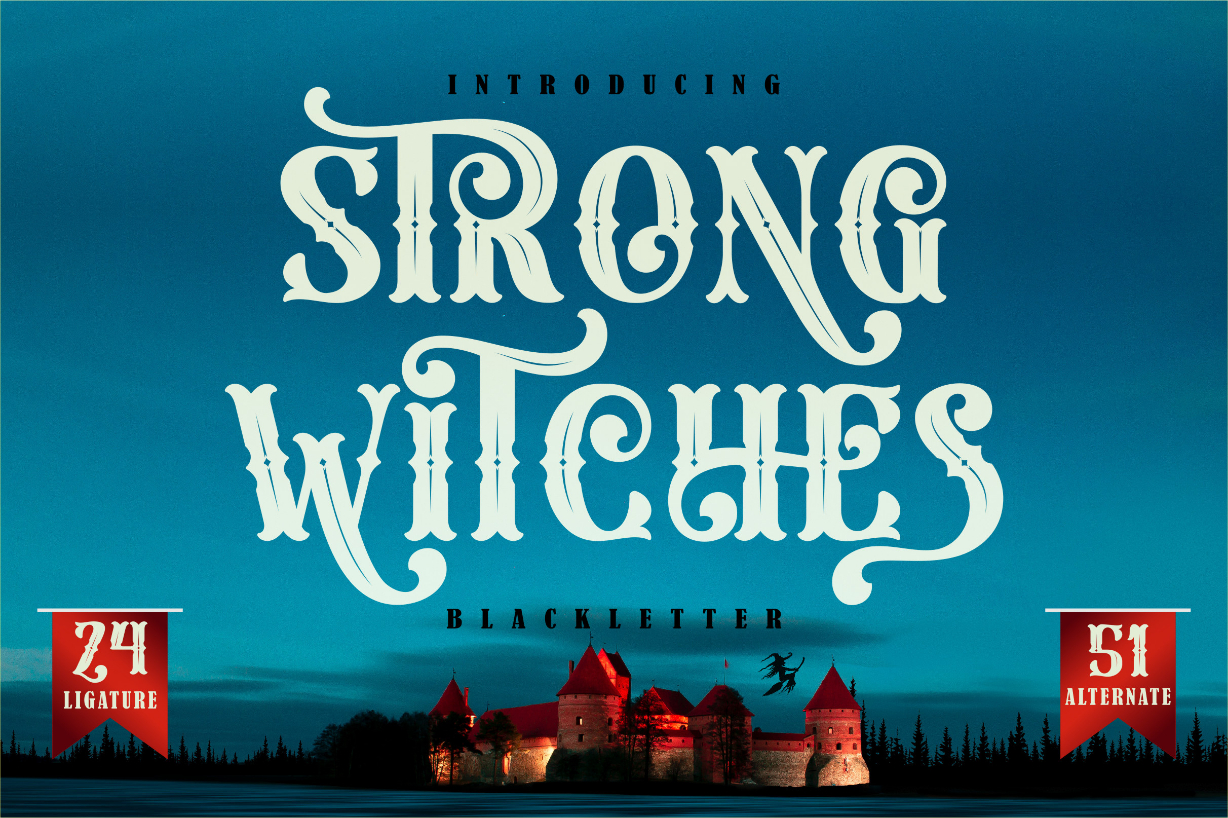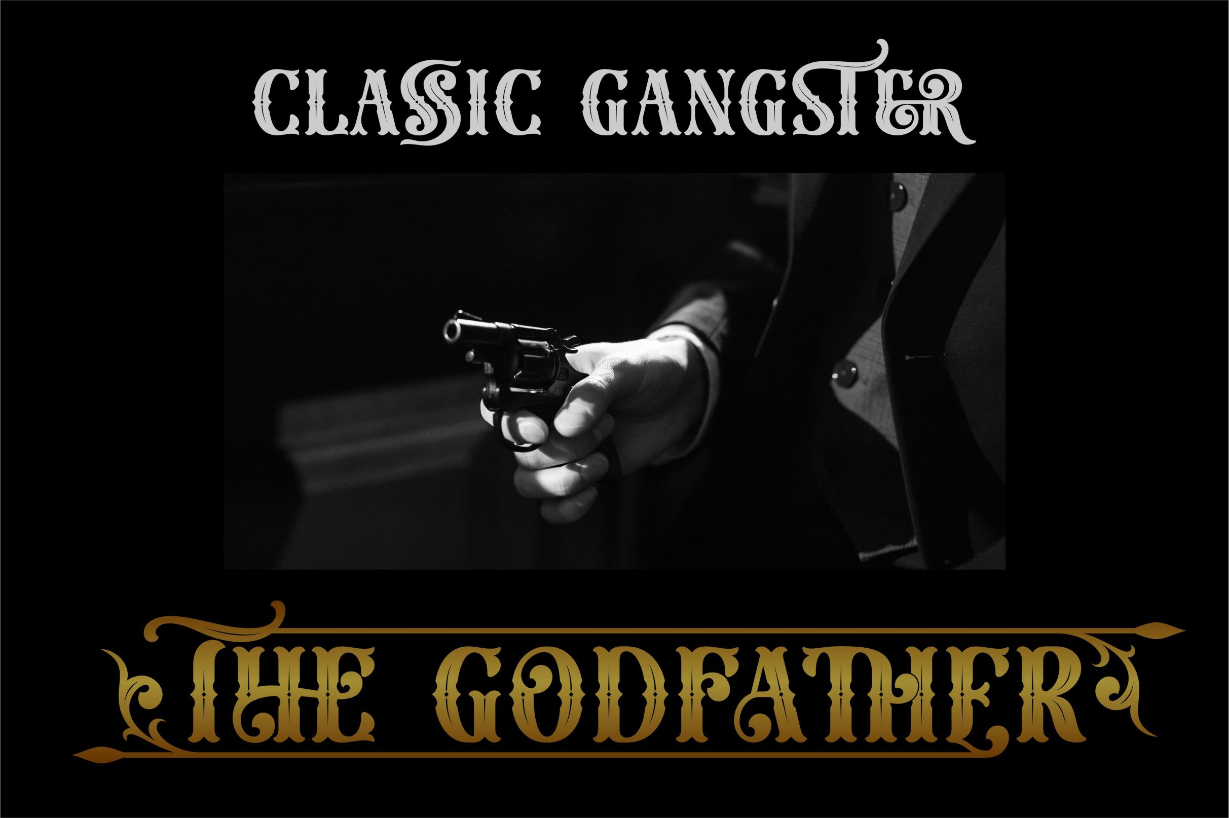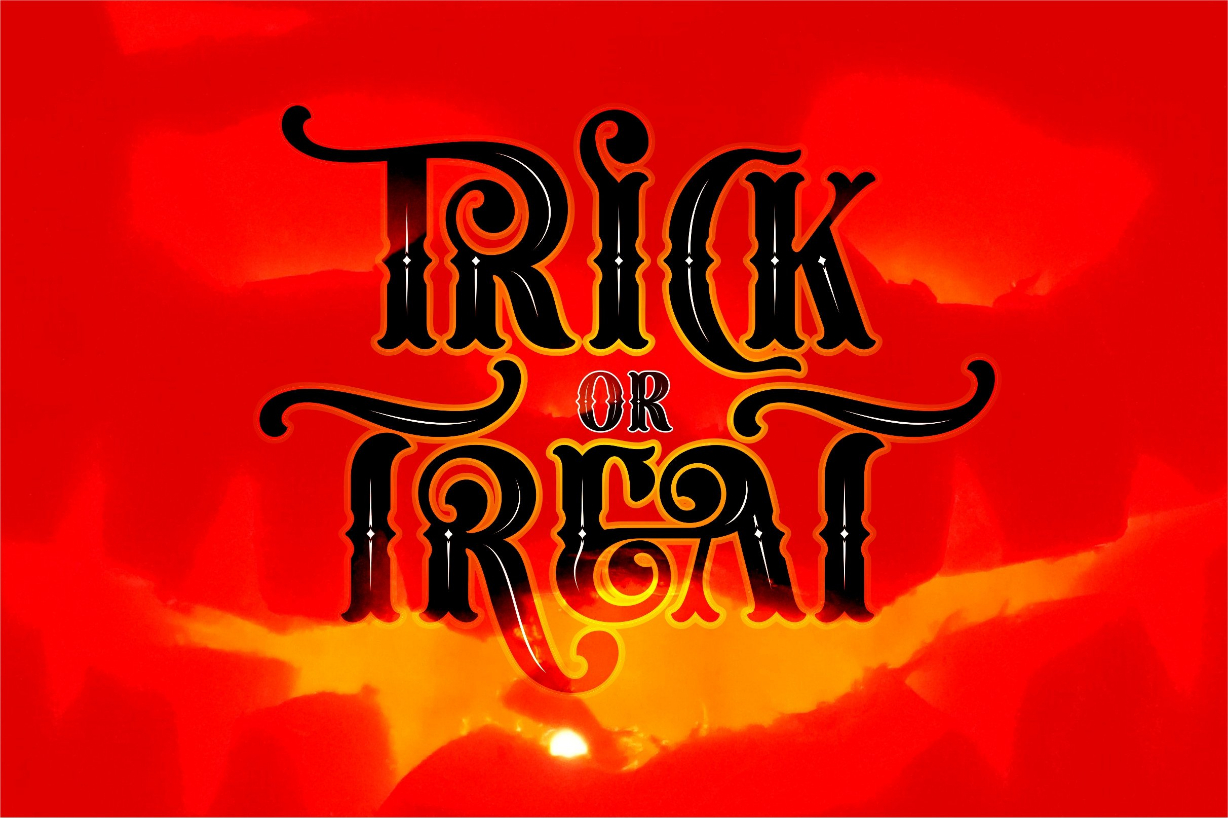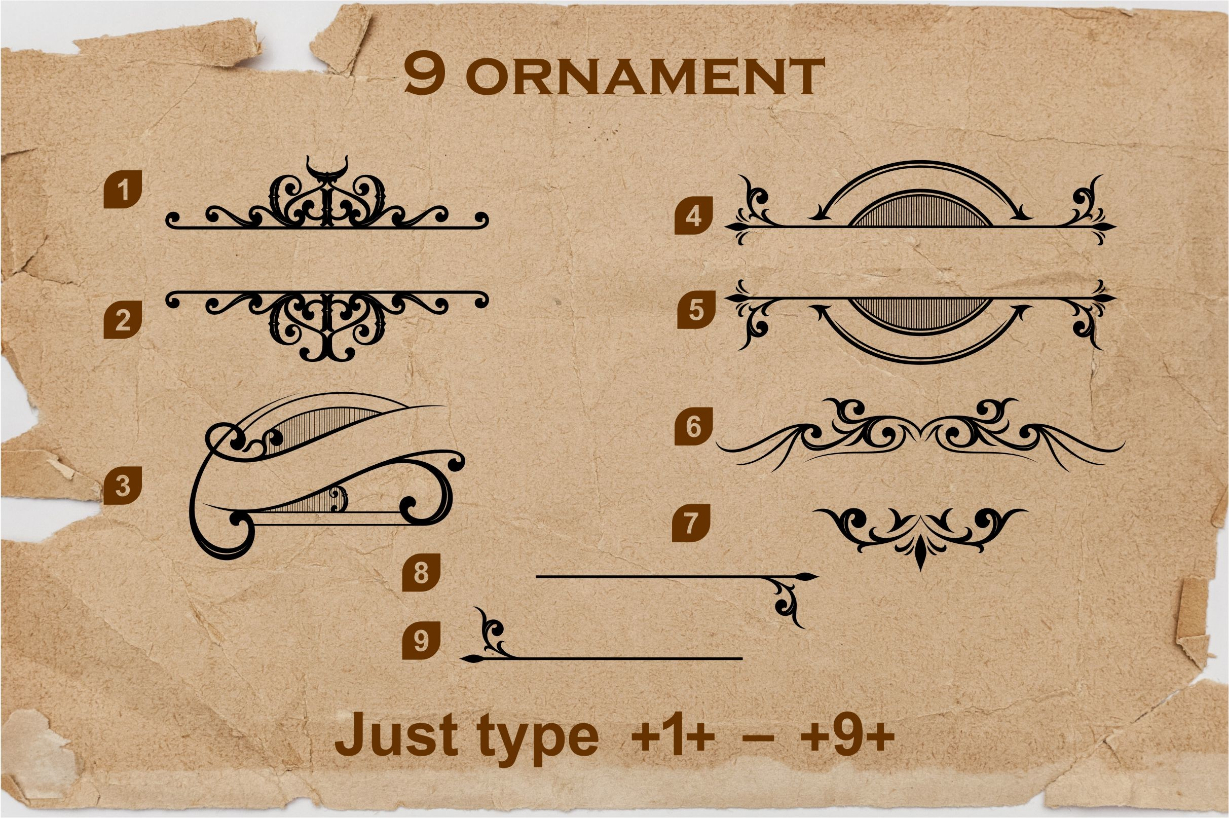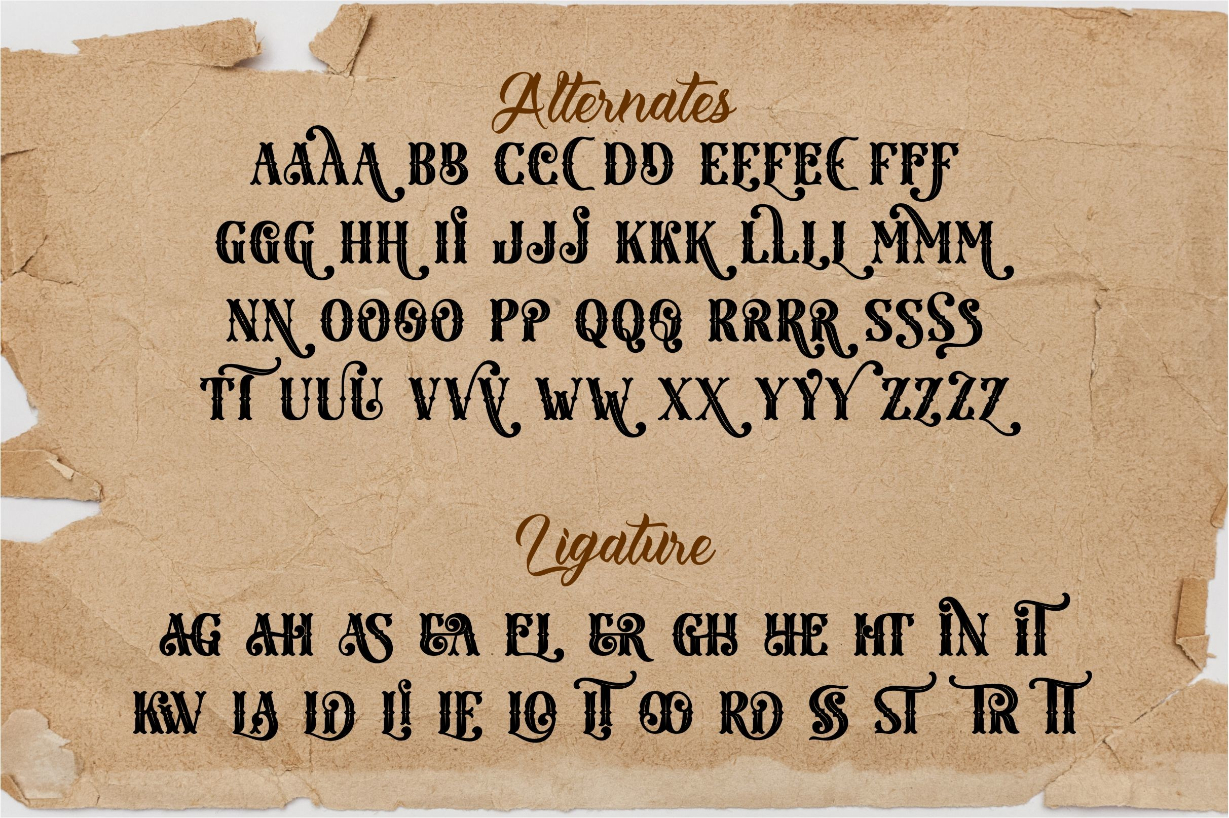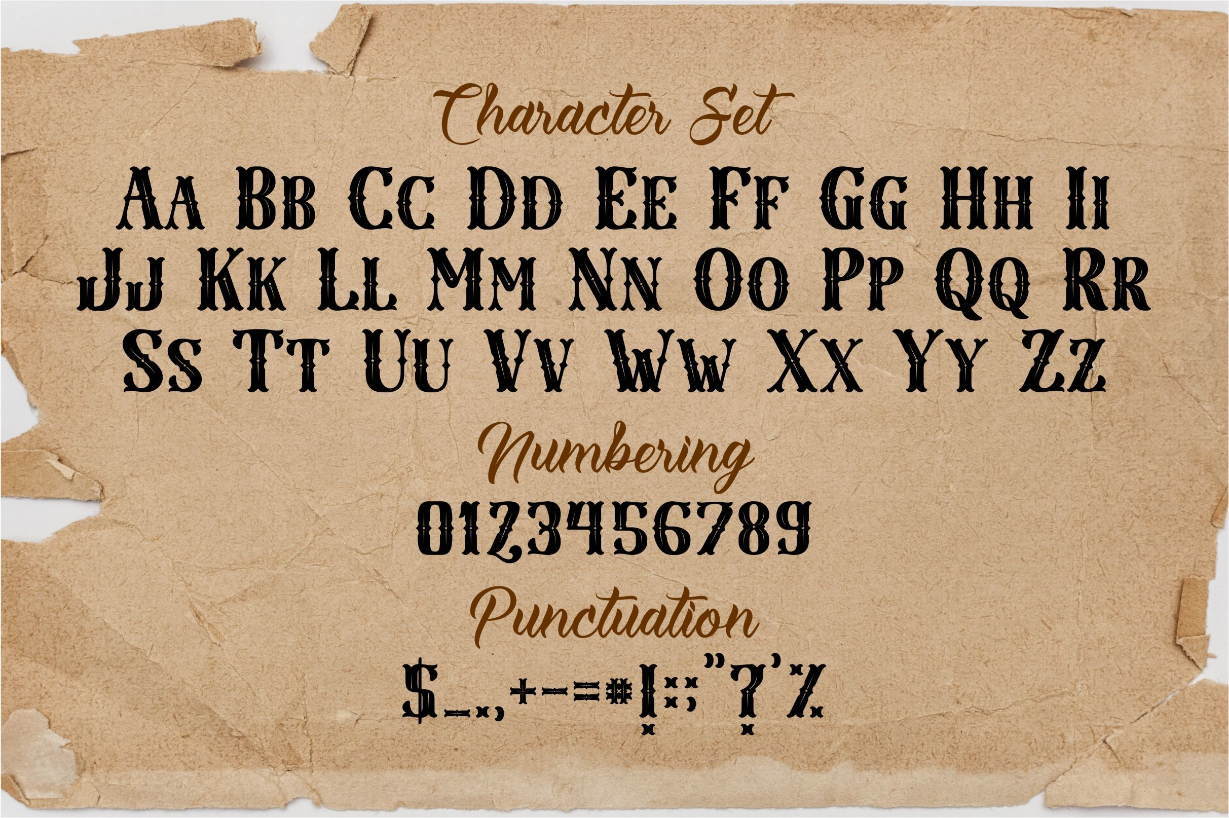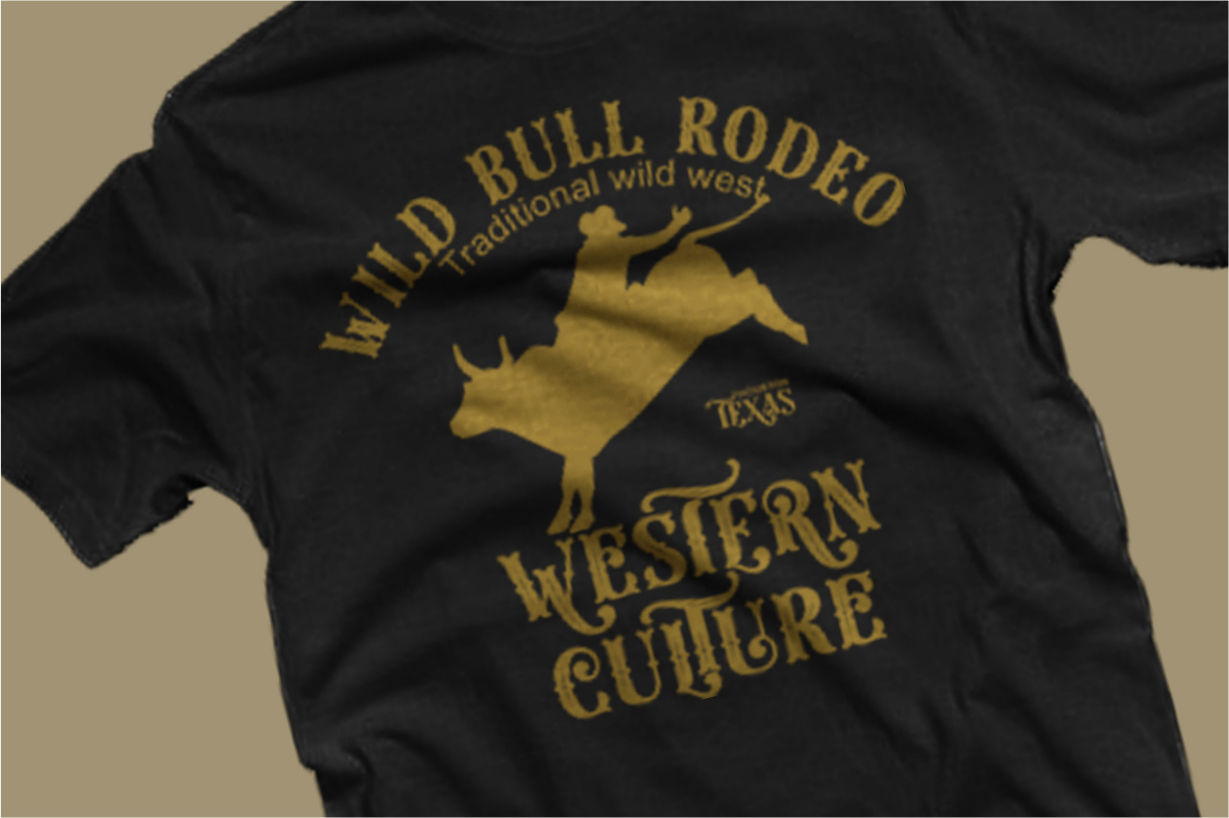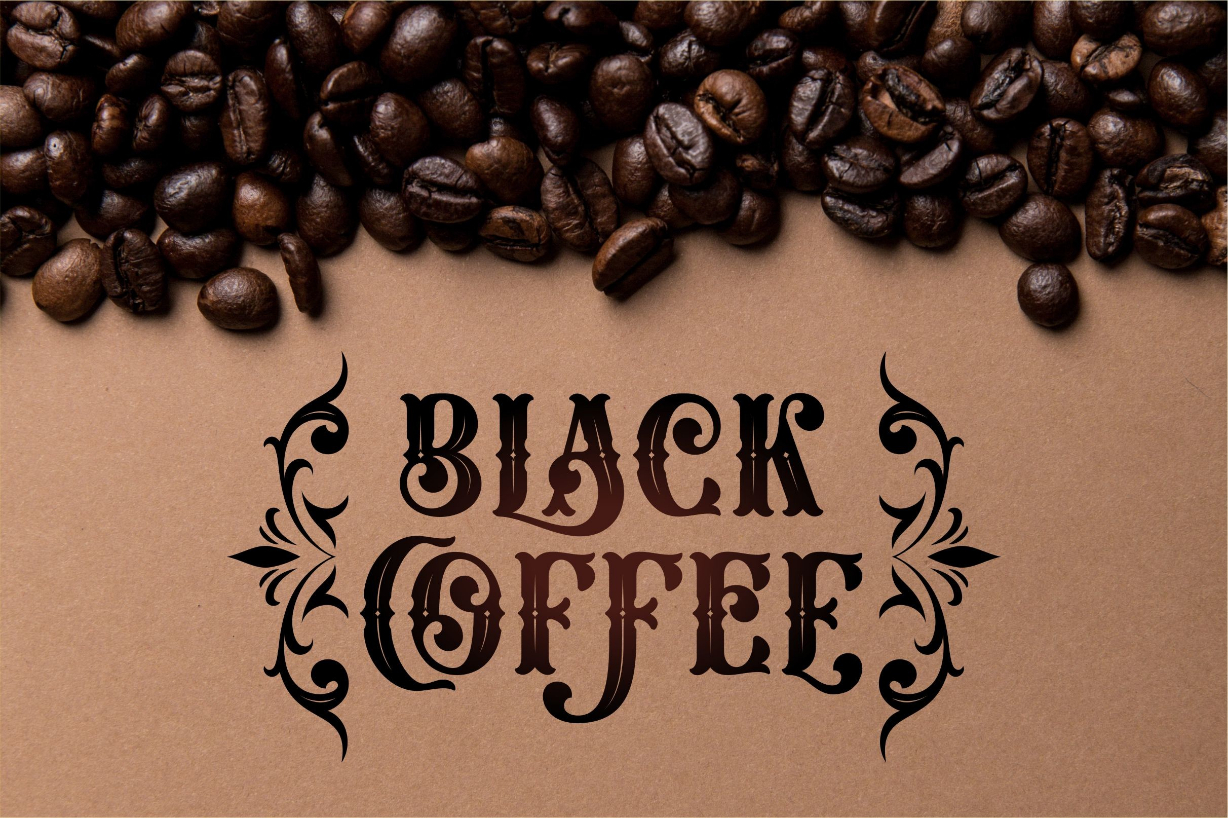
Strong Witches Font
About Strong Witches Font
Strong Witch is a bold fun blackletter font, this font is the ideal font to add a strong and fun feel to your next design idea!